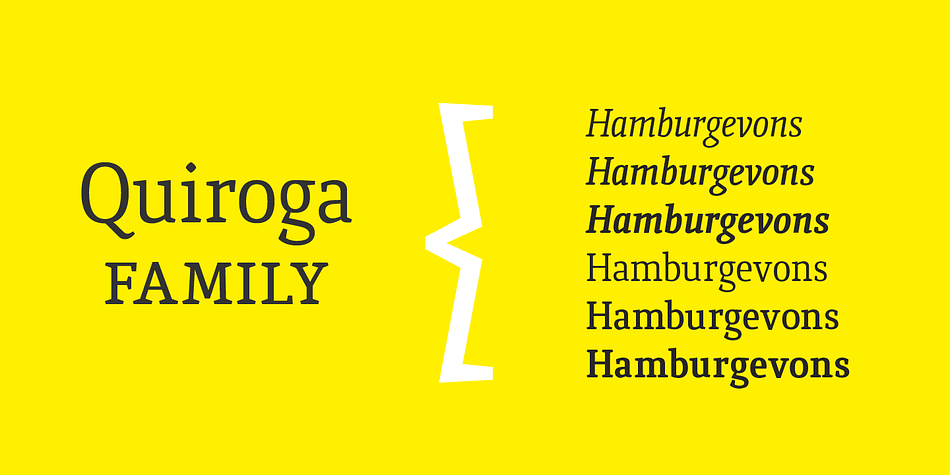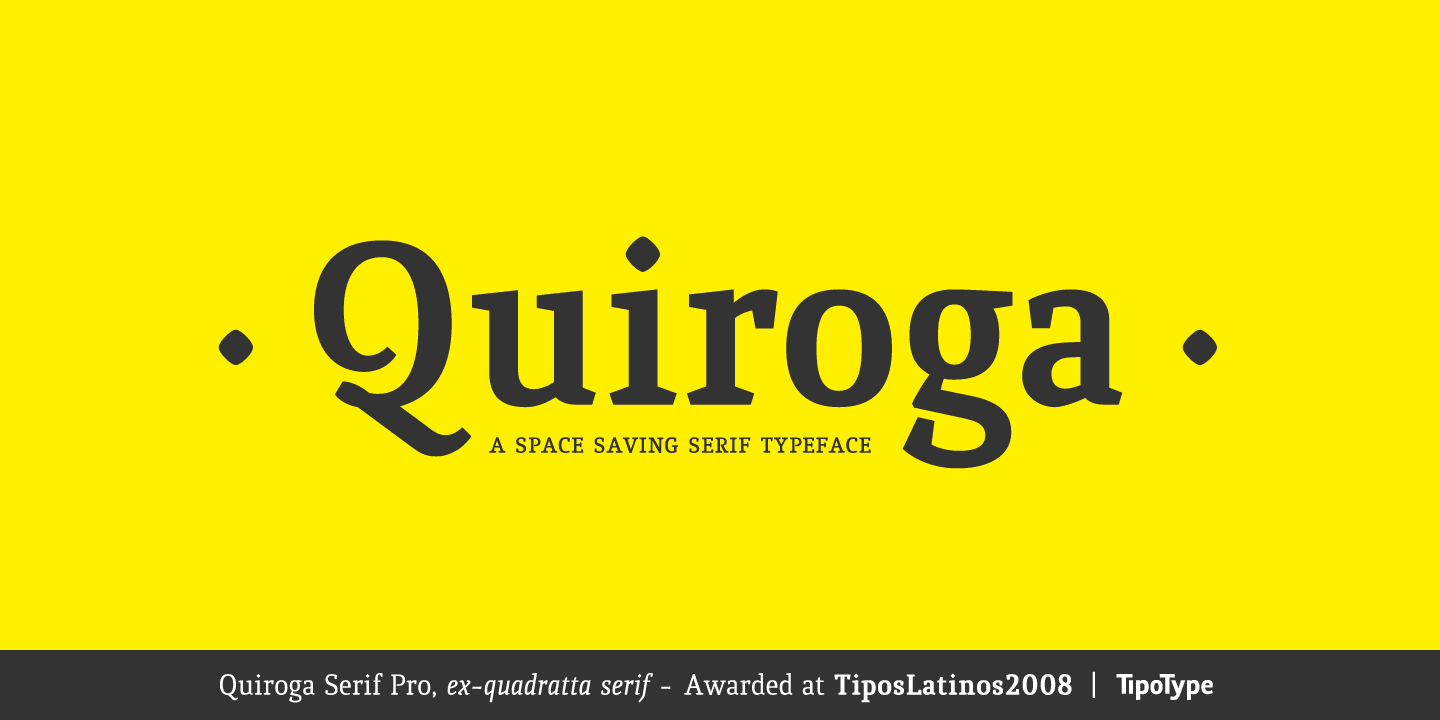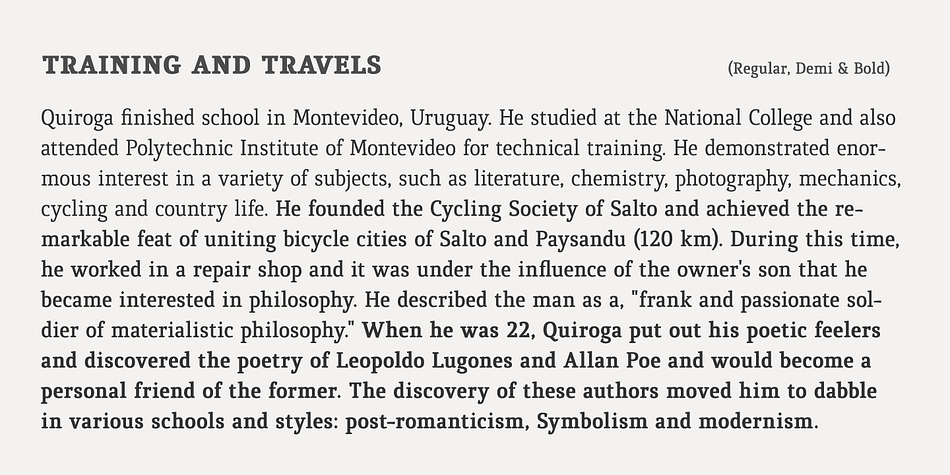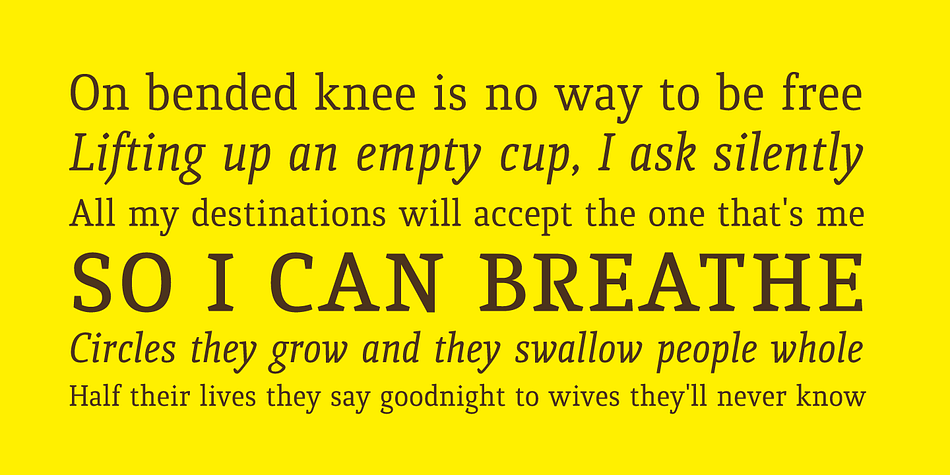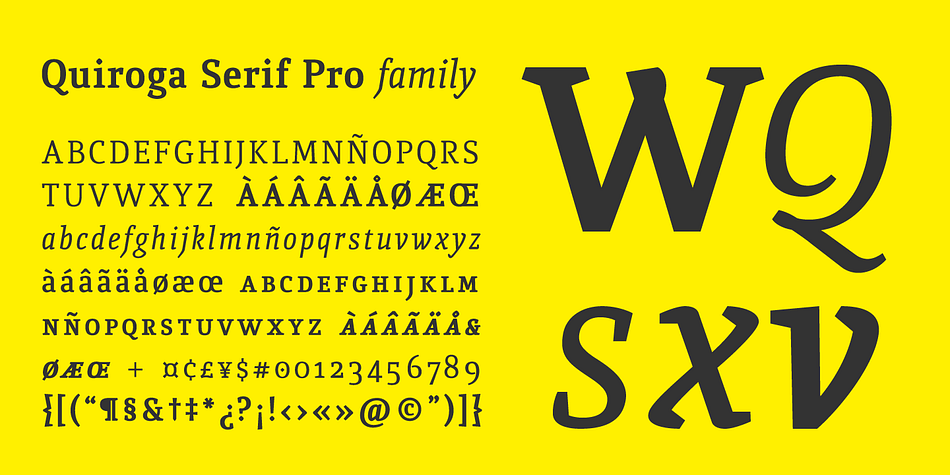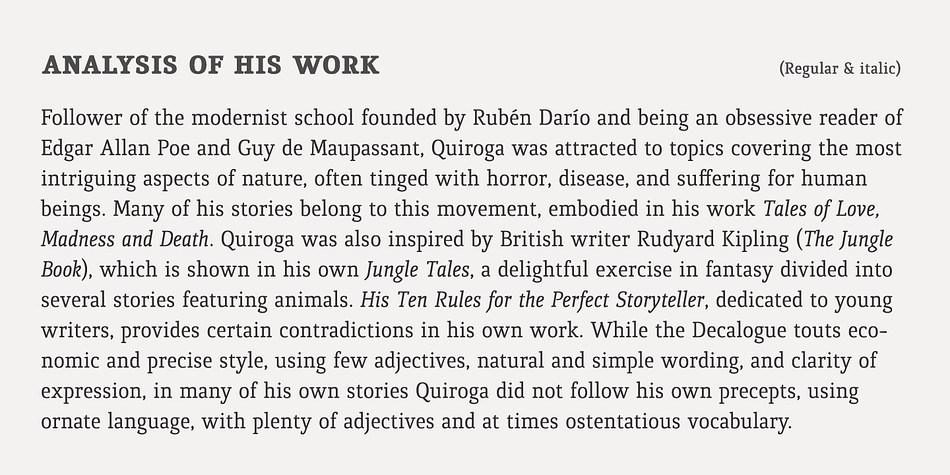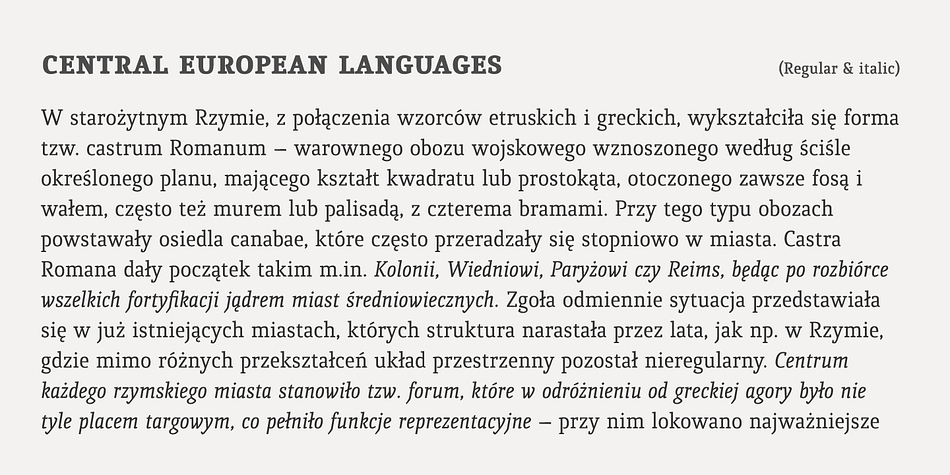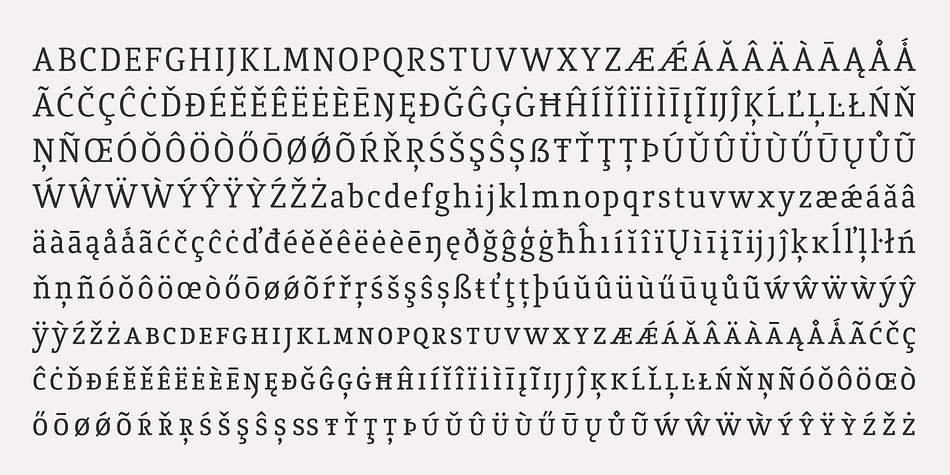
Quiroga Serif Pro is a serif font family. This typeface has six styles and was published by TipoType.
Quiroga Serif began in 2007 with the name Quadratta Serif.
This typography was designed for continuous text, legible at medium and small sizes, with great saving of space, optimized for 6, 8, 10 and 12 points. The morphology is a mix between tradition and innovation; it has a vertical axis, thick serifs, tall x-height, light modulation and a lot of internal space between letters: key to improve legibility at small sizes.
Formally, my idea was to make a serif type that had a unique color, this is visible due to the light modulation. This is also complemented with the incorporation of not common, alternative signs. Some parts of the letters that are usually curb or diagonal where made horizontal (for example: a, q, p, etc.), this makes the eye of each character to be wide and unique.
The serifs (wedge type) suffered diverse variations during the process. At the begining they where thicker and ended vertically, but this caused a great deal of printing errors. And so we decided to modify them by giving them an angle to avoid visible errors in medium and small sizes.
The ch, and ll ligatures where rescued because they are a part of our current spanish alphabet. The historic ligatures and stylistic alternates give different options to users who want different alternatives within a text. The accentuation signs were composed in a middle line above all signs to avoid visual shock. We also gave plenty of importance to small caps numbers, mathematical signs and currency signs so that the could interact well.